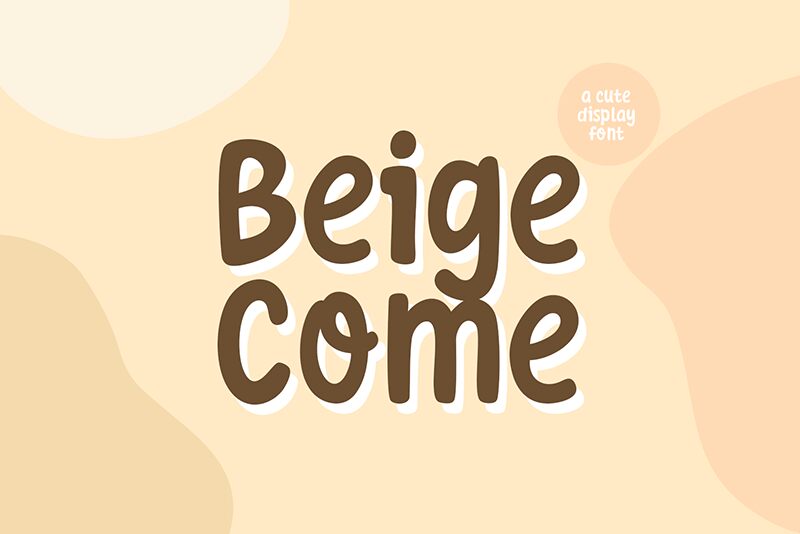
Beige Come is a cartoon-esque font with a playful twist created by the Khurasan team, featuring a unique style with fluid shapes and uneven lines.
Use it for branding projects for children’s items or any fun/creative product or service: cosmetics, jewelry, etc., or design quirky posters, invitation cards, flyers, social media posts, blog banners, ads for online games or websites dedicated to cartoonists, animators, etc.